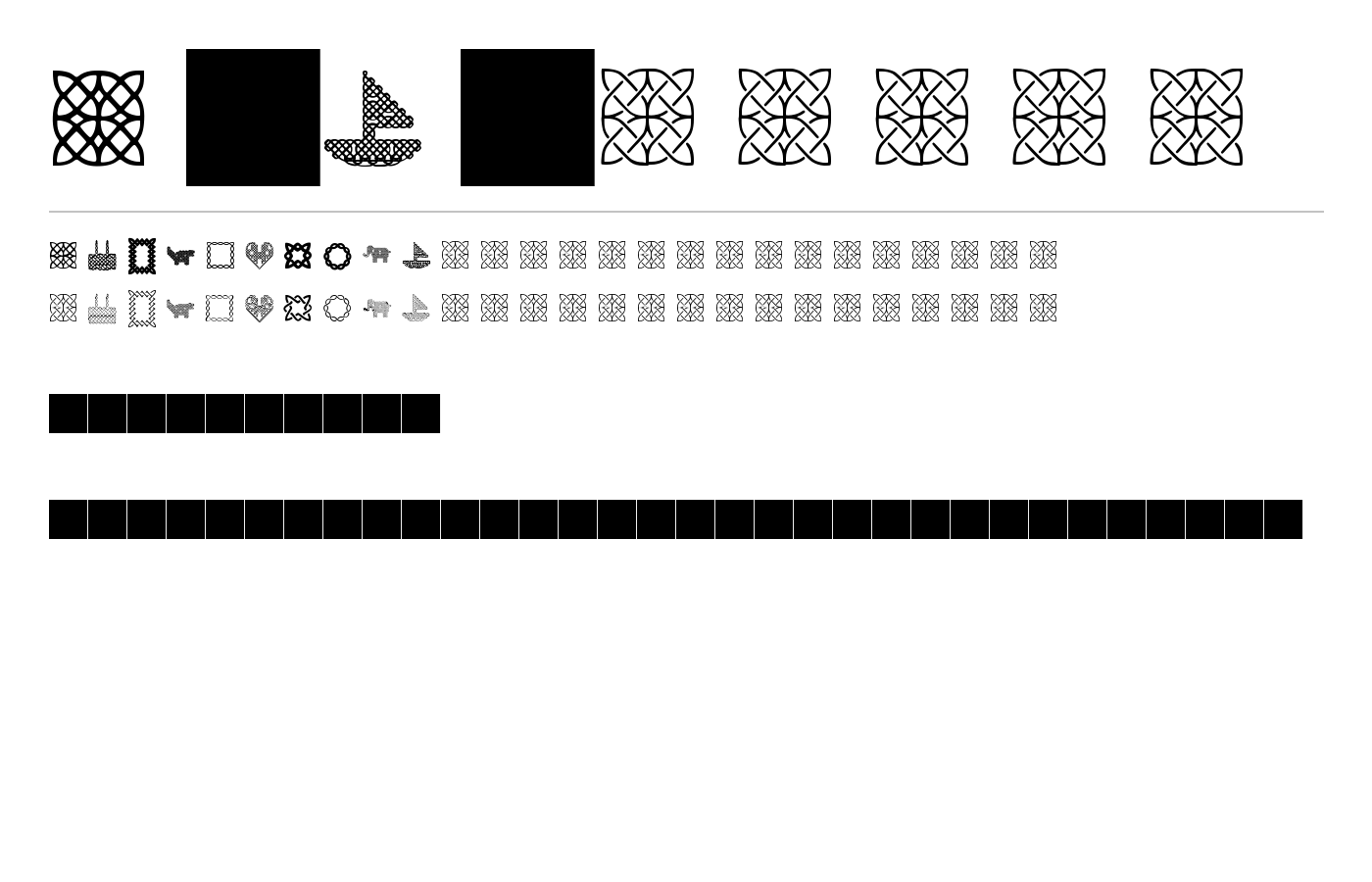
A-J knots Font is a decorative symbol font featuring intricate knot and nautical-themed shapes rather than traditional letters. With a clean, geometric style and varied line textures, it offers a unique, artistic touch perfect for creative projects, branding, and ornamental uses. This font works well for logos, posters, or design elements needing a distinctive and elegant visual flair.
A-J knots Font
About A-J knots Font